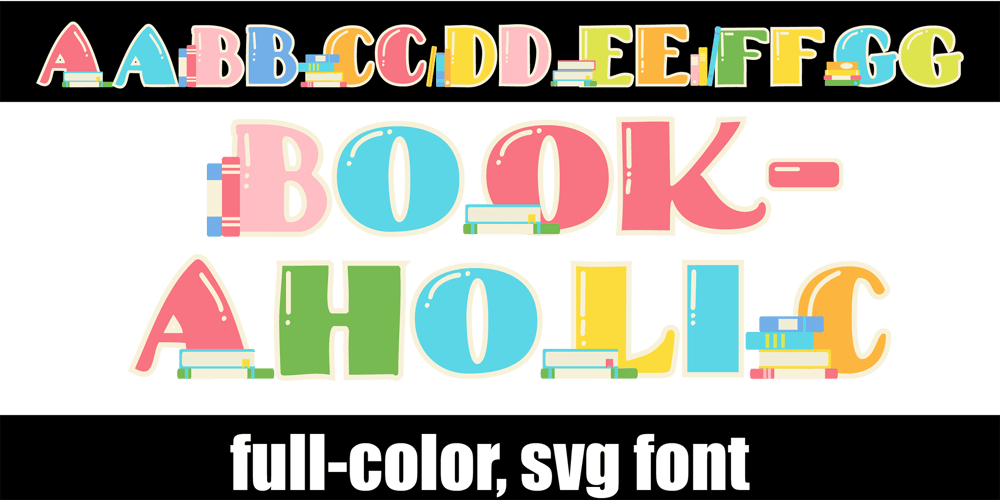
Bookaholic CF Font Family was designed by Illustration Ink and published by Illustration Ink. Bookaholic CF contains 3 styles and family package options. This full-color font features a serif font with books on the uppercase. There is an alt case with additional colors you can access through your system’s character map. This font works best for titles, displays, posters and more. Please note color fonts will show as black in non compatible programs. This font type is compatible with Silhouette Studio.OpenType full-color (SVG) fonts are installed like any normal font is installed. This usually happens via FontBook for Mac users or via your preferred font manager or Control Panel in Windows. Please note color fonts will show as black in non-compatible programs. They often show as black when choosing the font in the preview window in programs that support color fonts. You will know if your program can support color fonts when you type on the document and see them in color. Adobe products, Silhouette Studio, Quark, and Inkscape, amongst others, support full-color SVG fonts at this time.Full-color SVG fonts are the perfect way to add a touch of personality to your designs. With a full range of colors and styles to choose from, you can create anything from simple text logos to complex illustrations. Plus, SVG fonts are vector-based, so they can be scaled to any size without losing quality.Here are some of the benefits of using full-color SVG fonts: They are versatile and can be used for a variety of projects, from logos and branding to web design and print. They are scalable, so you can use them for any size project. They are high quality and will not lose their resolution when scaled. They are easy to use and can be installed in any software that supports SVG fonts. If you are looking for a versatile, high-quality font that can be used for a variety of projects, then a full-color SVG font is the perfect choice for you.